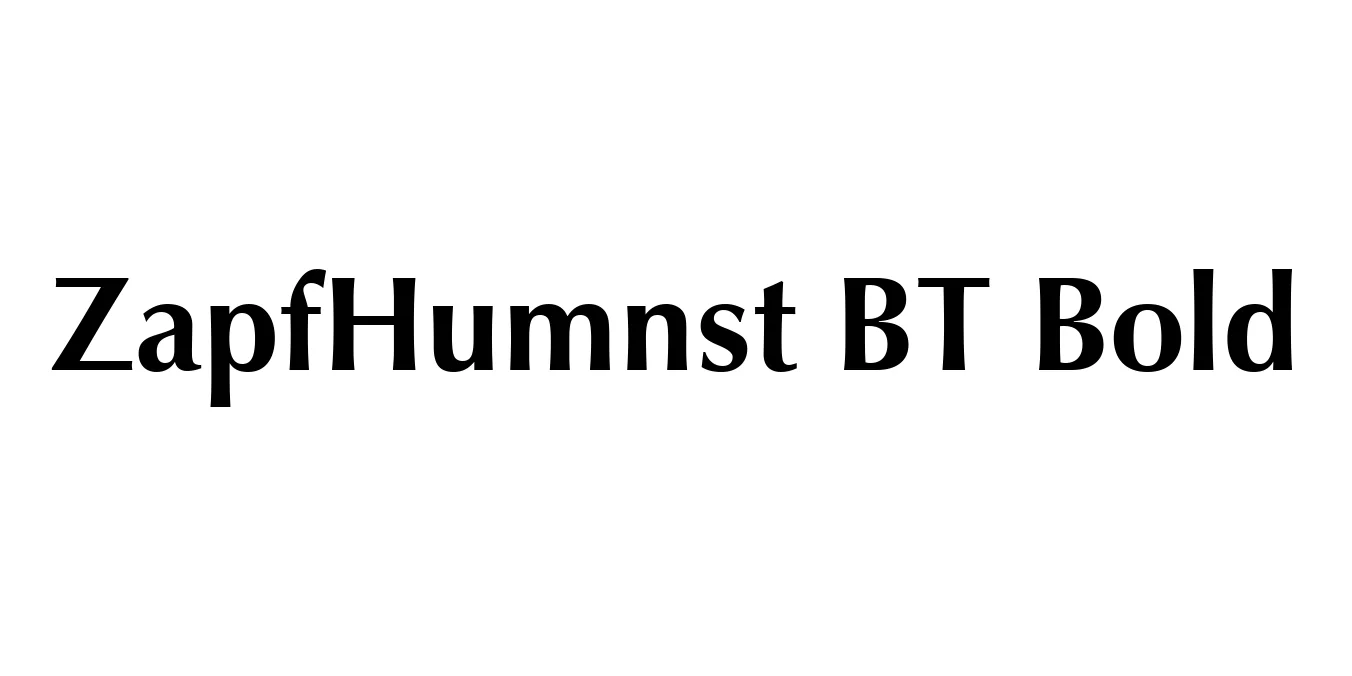
ZapfHumnst BT Bold
Designed by Hermann Zapf
| Category | Humanist Sans-serif |
| Designer | Hermann Zapf |
| Similar Fonts | Optima, Cronos Pro, Pascal, Gentium |
ZapfHumnst BT Bold is the Bitstream version of the iconic Optima typeface, which was originally designed by the legendary German typographer Hermann Zapf between 1952 and 1955. This typeface is classified as a humanist sans-serif, a unique hybrid style that lacks serifs but incorporates the varying stroke weights and calligraphic grace typical of classical Roman lettering. It represents one of the most successful attempts to bridge the gap between traditional serif elegance and modern sans-serif minimalism.
The Bold weight of this family offers a significant visual presence, making it ideal for emphasizing hierarchy in complex layouts. Because its design is rooted in Renaissance proportions rather than geometric shapes, it maintains exceptional legibility even at higher weights. Throughout history, ZapfHumnst has been a staple in high-end branding, architectural signage, and prestige publishing, prized for its ability to convey authority without sacrificing aesthetic beauty.
ZapfHumnst BT Bold Best Uses
Perfect for bold, commanding titles that require a touch of classical sophistication.
Excellent for professional brand identities looking for a timeless, high-end feel.
Highly effective for magazine covers, brochures, and luxury catalog spreads.
Provides clear readability and elegance for high-profile architectural wayfinding.